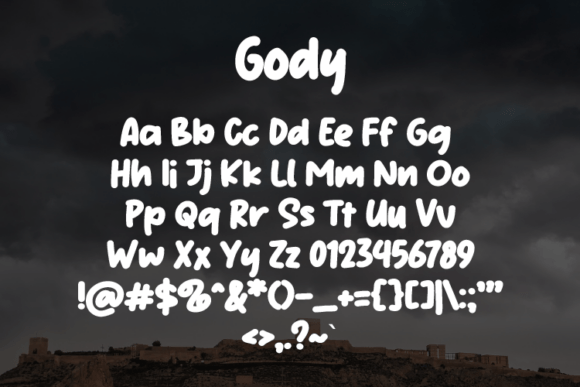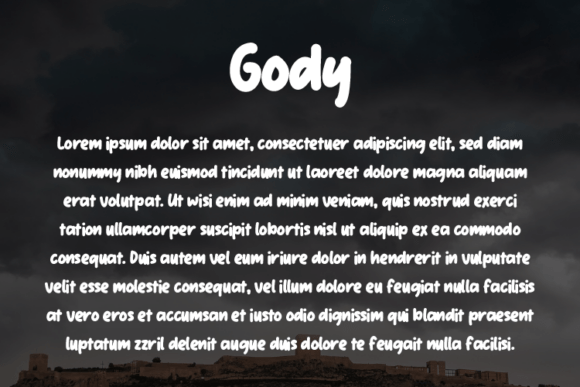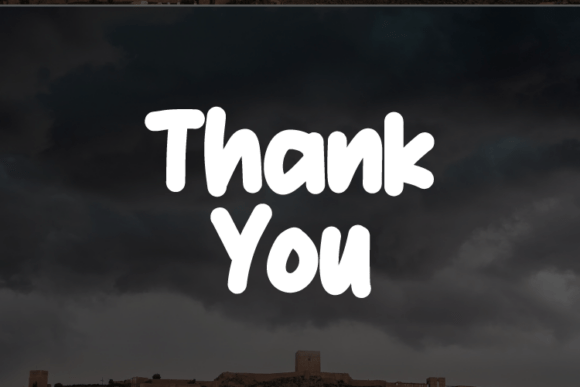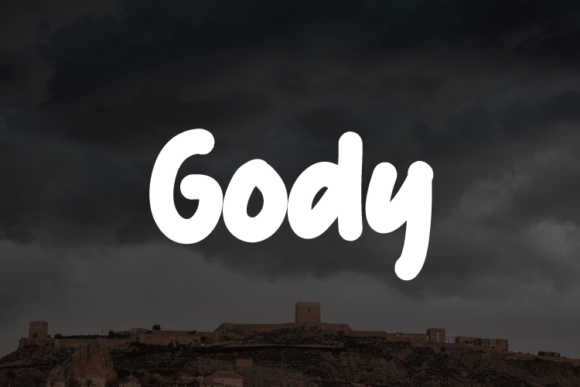
Introducing Gody Font: A Modern and Elegant Typeface for Enhanced Readability
In the world of typography, a well-designed font can make all the difference in the effectiveness of a design project. Whether you’re a professional graphic designer, a crafty DIY enthusiast, or a business owner looking to elevate your brand’s visual identity, having the right font at your disposal can be a game-changer. This is where Gody Font comes into play – a modern and elegant typeface engineered for flexibility and exceptional readability across a wide range of media.
What Makes Gody Font Stand Out?
Gody Font is not just another addition to the vast universe of typefaces. It is specifically designed to cater to the needs of contemporary designers and crafters who demand both style and substance in their typography. Here are some key features that set Gody Font apart:
- Modern and Elegant Design: Gody boasts a sleek and sophisticated design that instantly elevates any text it’s applied to. Its modern aesthetic ensures that your designs look current and appealing.
- Flexibility: One of the hallmarks of Gody Font is its versatility. It can be used in a variety of contexts, from digital media to print, without losing its charm or readability.
- Excellent Readability: The design of Gody prioritizes readability, ensuring that your audience can easily consume and understand the text, whether it’s on a billboard, a website, or a product label.
Why Choose Gody Font for Your Projects?
For designers and crafters looking for a reliable, stylish, and highly readable font, Gody Font ticks all the right boxes. Here are a few reasons why Gody should be your go-to typeface:
- Time-Saving: With Gody Font, you can achieve professional-looking results without spending hours experimenting with different fonts. Its elegant design and excellent readability save you time and effort.
- Consistency: Using a consistent font across your projects helps in building a strong brand identity. Gody Font’s versatility ensures that it can be used across various platforms and materials, maintaining consistency in your brand’s visual communication.
- Enhanced Aesthetic Appeal: The modern and elegant design of Gody Font instantly enhances the aesthetic appeal of your designs, making them more engaging and attractive to your audience.